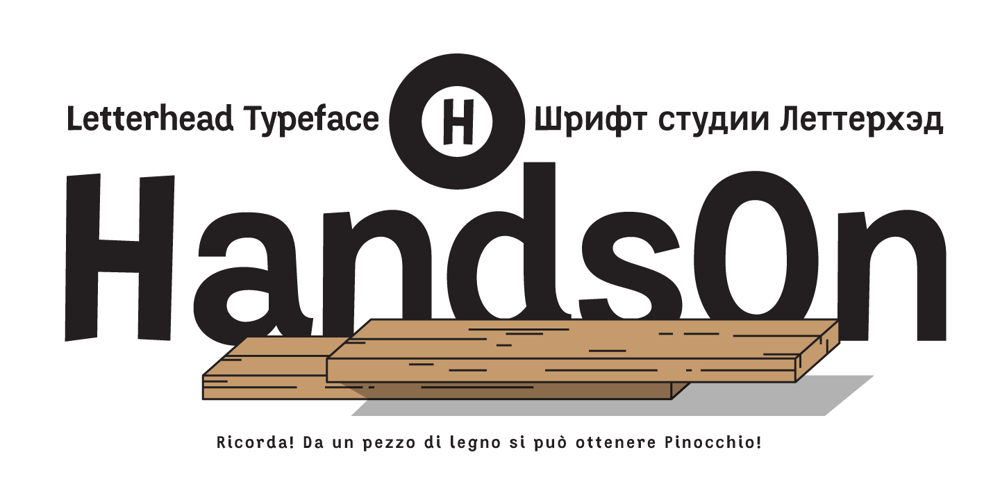
HandsOn Font Family was designed by Valery Golyzhenkov and published by Letterhead Studio-VG. HandsOn contains 1 styles and family package options. HandsOn font was developed in the late 90s. Font shape looks like manual drawing. Suitable for decoration of children’s books.